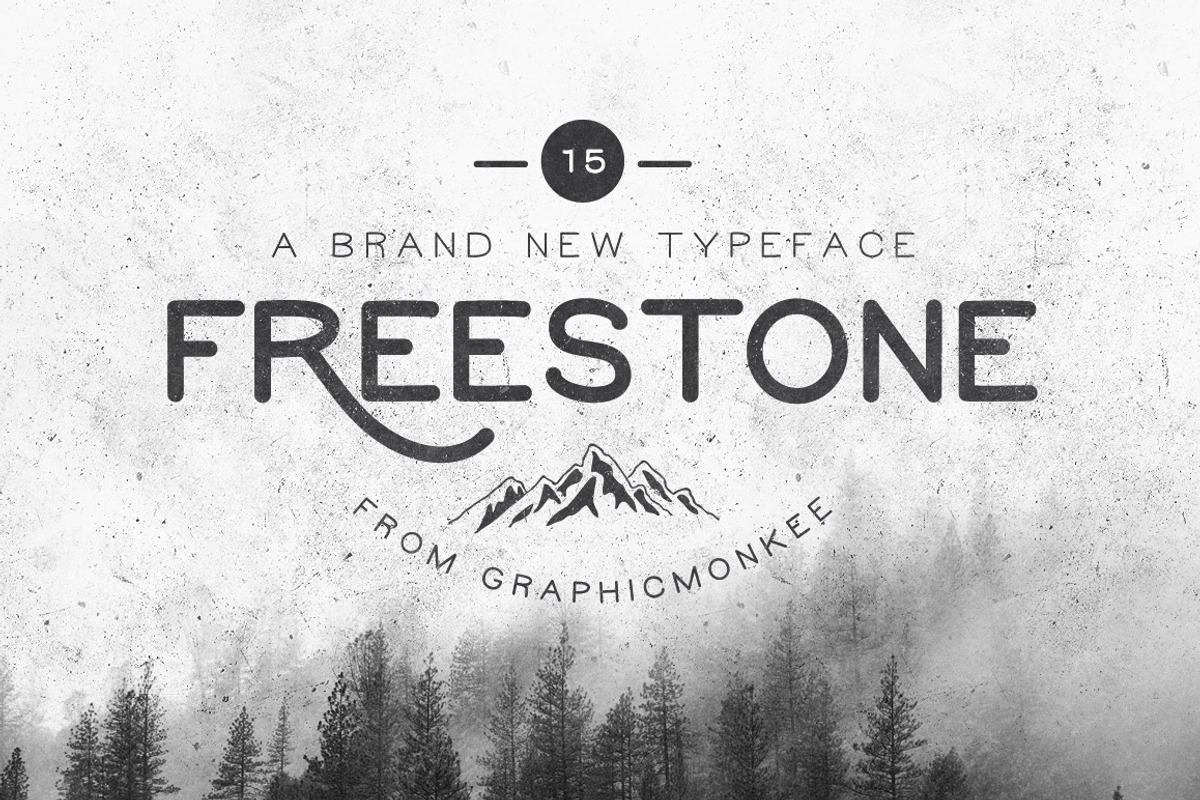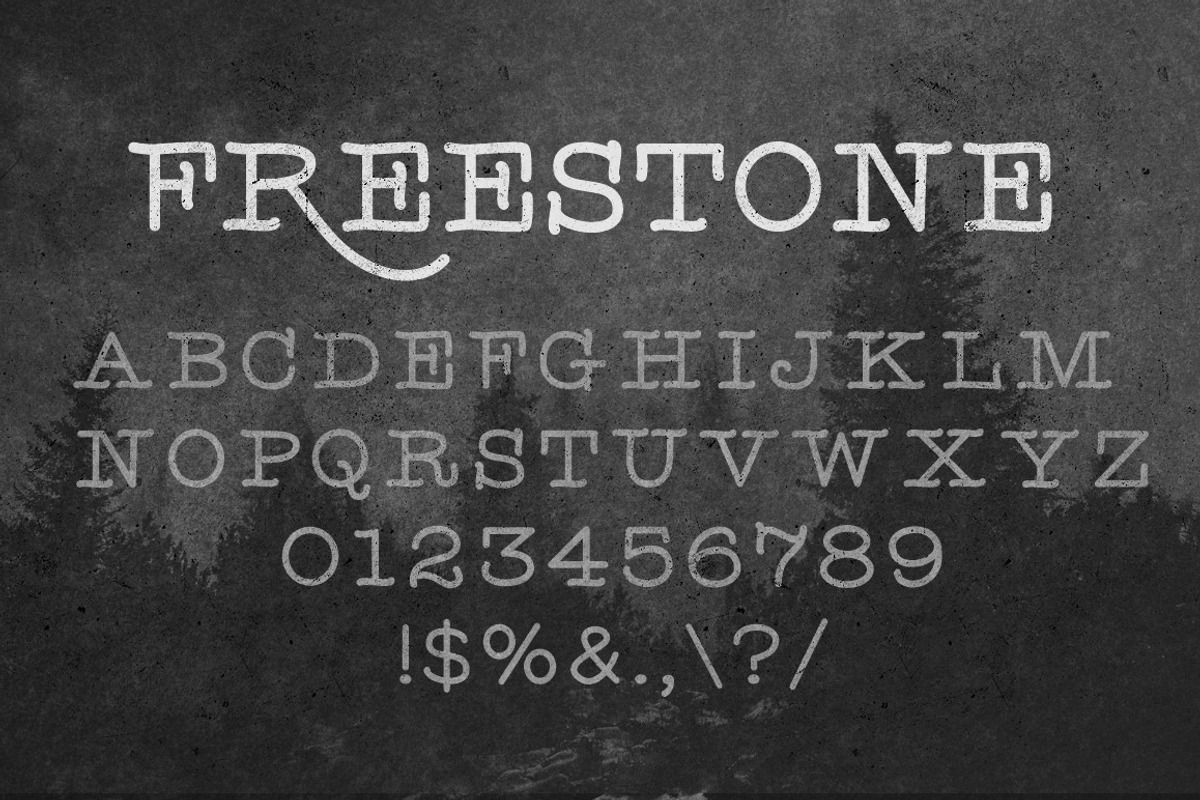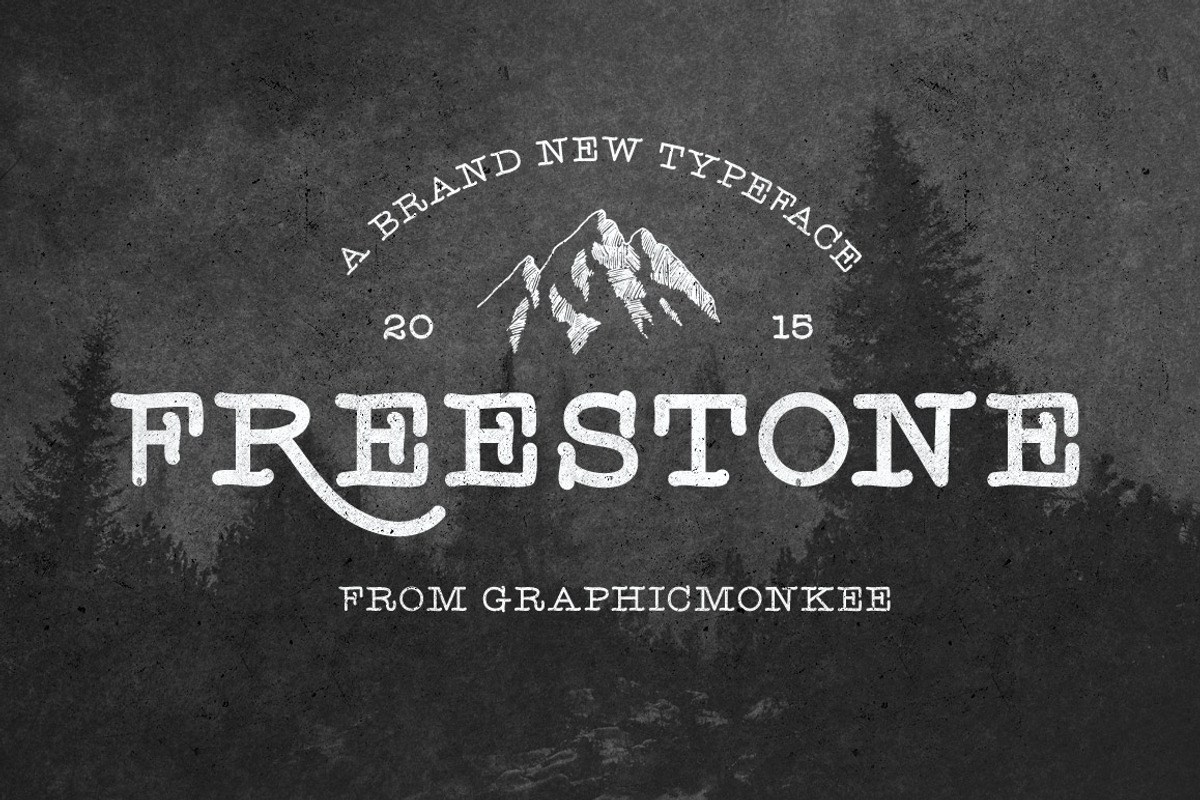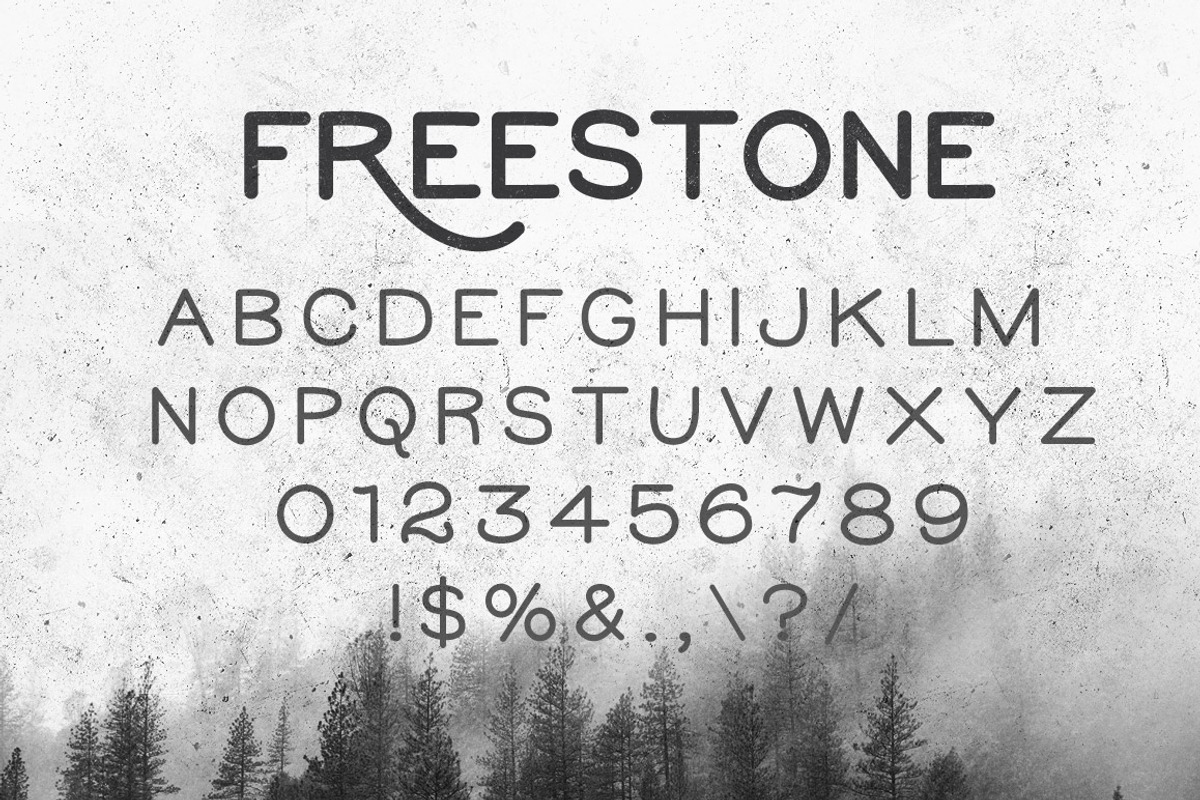
Freestone - Handmade Font
Freestone is a simple and clean hand drawn font. It is inspired by the hand lettering movement, the outdoors, and vintage style design. The download includes a serif and sans serif version, each with three weights. There are alternate capital letters for K,L,R. The font is a perfect match for badges, logos, stamps and posters.